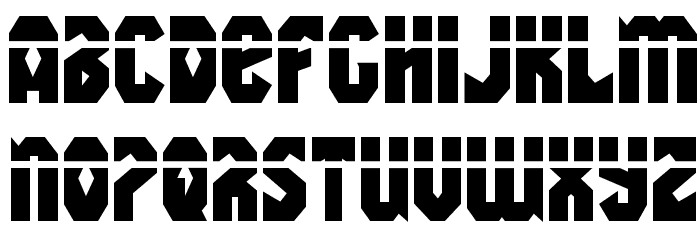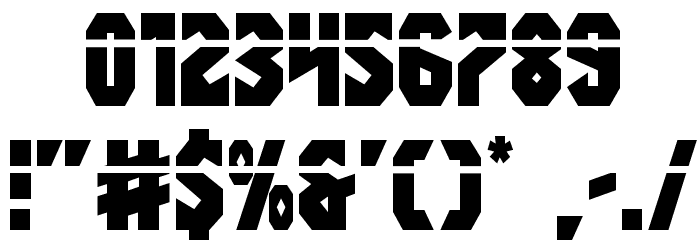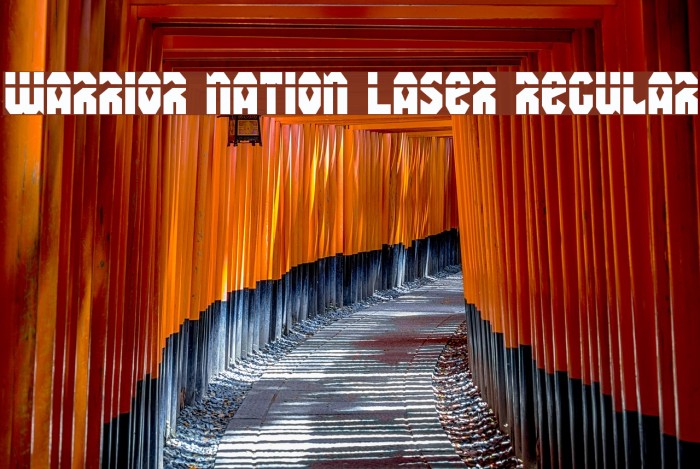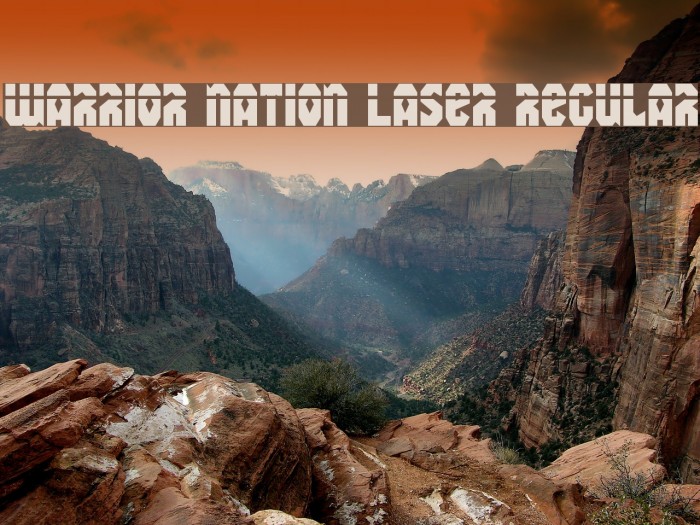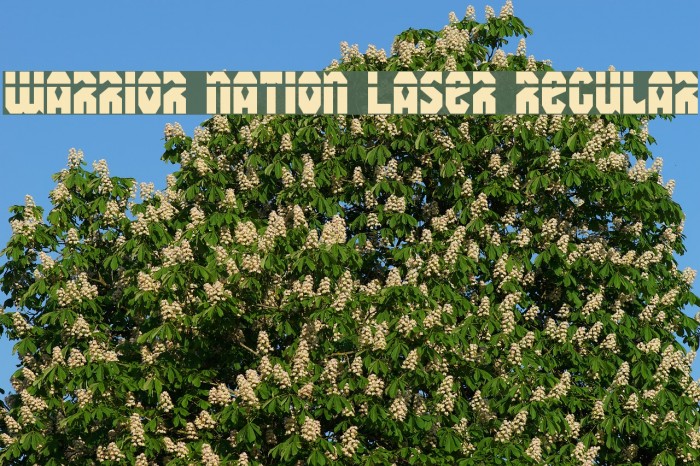
Warrior Nation Laser Regular Font
This font features a bold, geometric design with sharp angles and a futuristic aesthetic. The characters are constructed with a blocky, stencil-like appearance, giving it a strong and commanding presence. The uppercase and lowercase letters maintain a consistent style, with the uppercase being slightly more pronounced. The numbers and special characters follow the same angular and robust design, ensuring uniformity across all glyphs. This font is ideal for projects that require a modern and edgy look, such as technology-related branding or sci-fi themed designs.
A bold, geometric font with a futuristic and stencil-like design.
- Proposed Projects: Ideal for technology branding, sci-fi themes, video game titles, and modern posters.